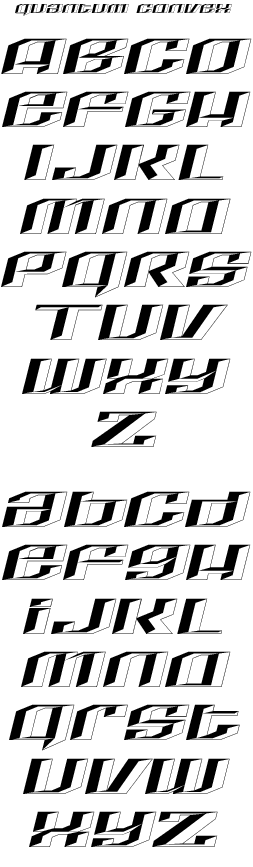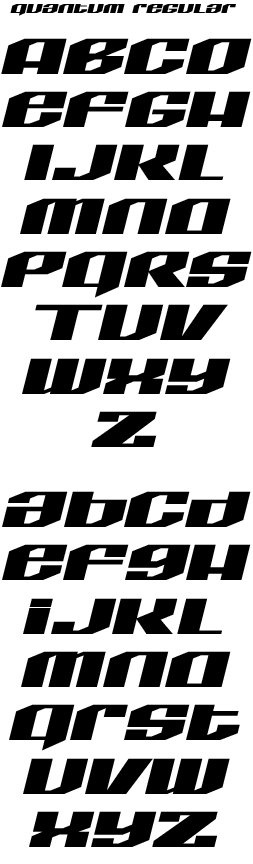
LHF Quantum
Modern typeface well suited for applications where an extended letterstyle is needed. Regular & Convex versions.
Quantum includes numbers & punctuation